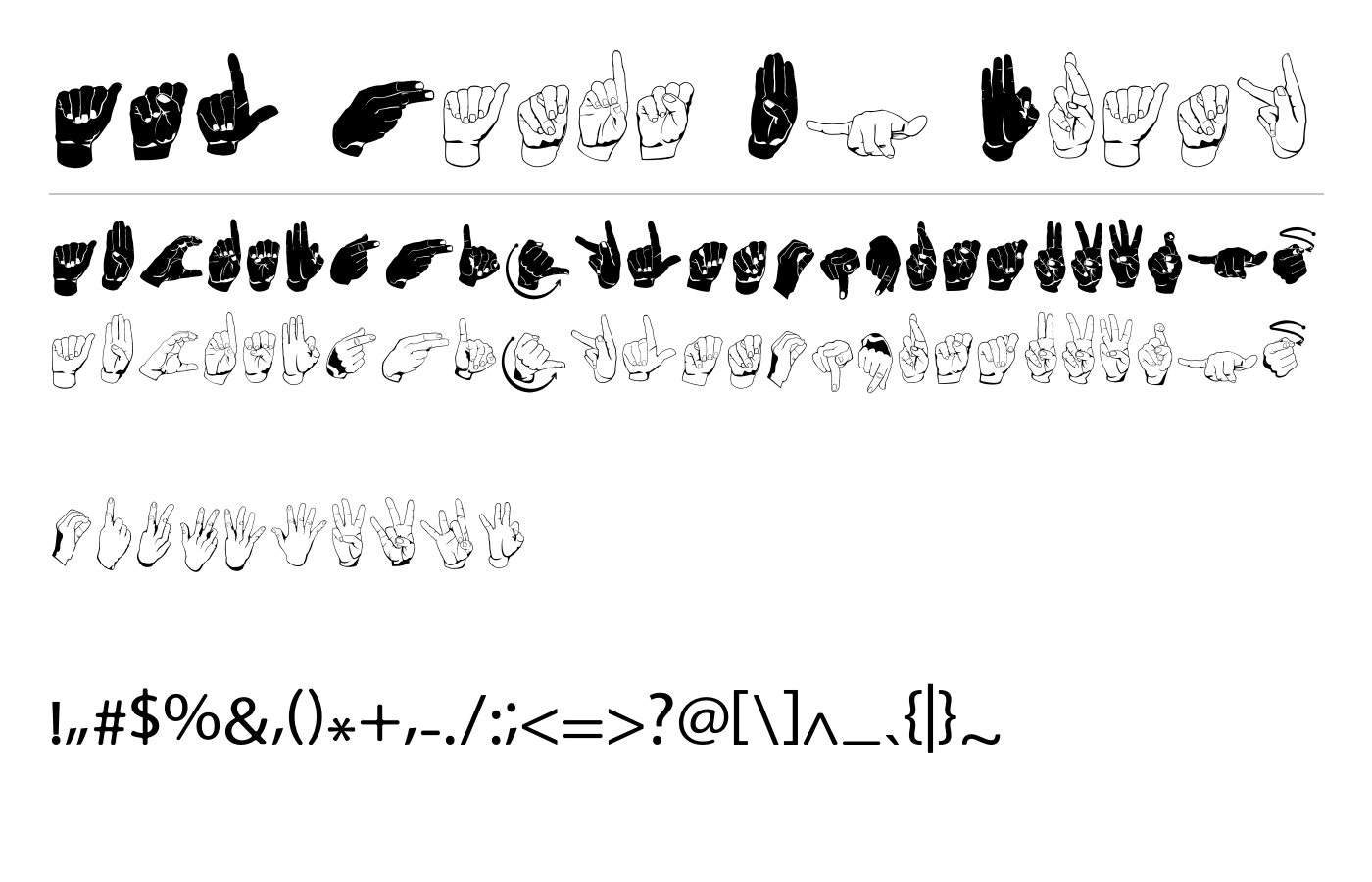
ASL Hands By Frank Font is a unique and expressive display typeface that uses illustrated American Sign Language hand shapes to represent characters. Its detailed, hand-drawn style combines both solid black and outlined figures, creating a playful yet meaningful visual language ideal for inclusive and creative projects. This font works wonderfully for educational materials, awareness campaigns, and bold, eye-catching designs that celebrate communication and diversity.
ASL Hands By Frank Font
About ASL Hands By Frank Font